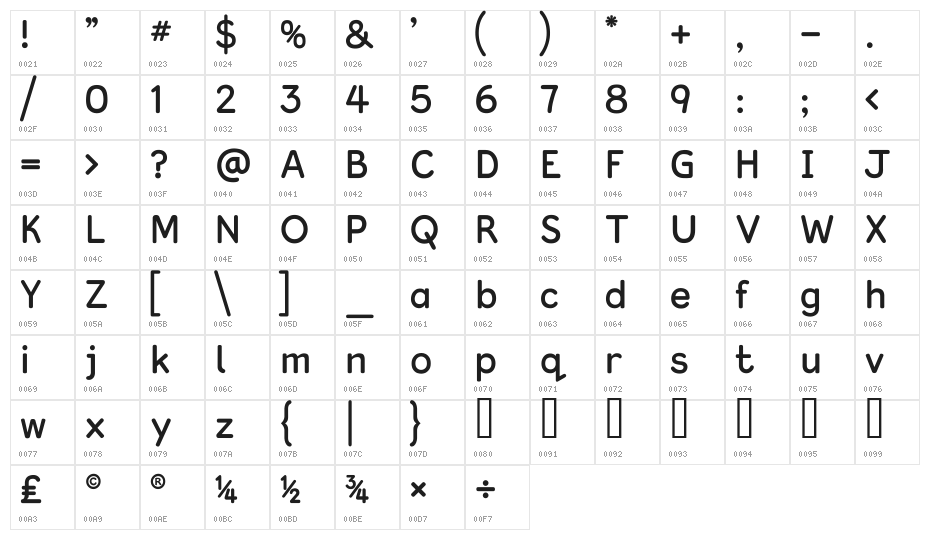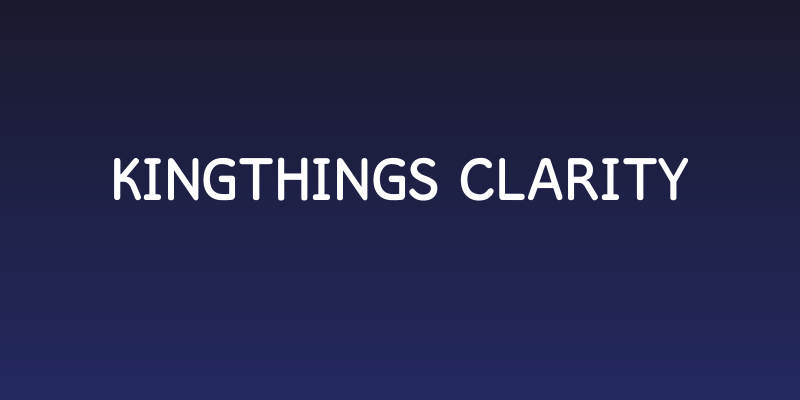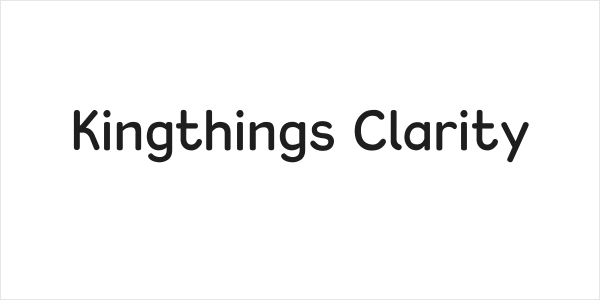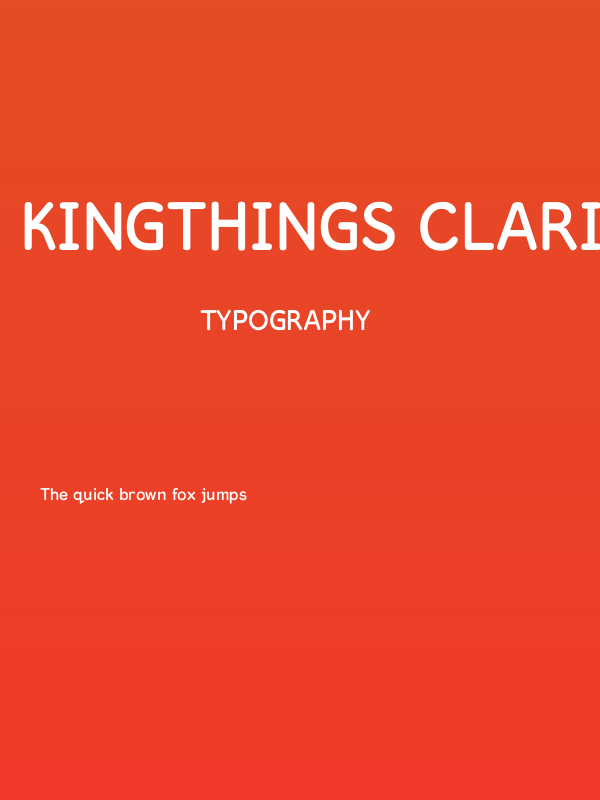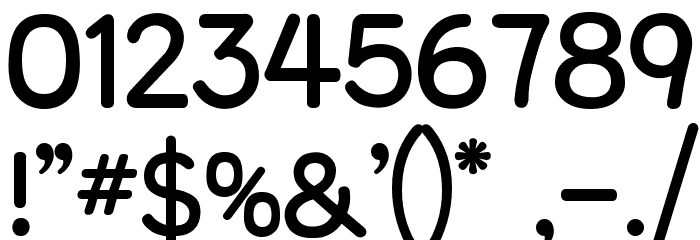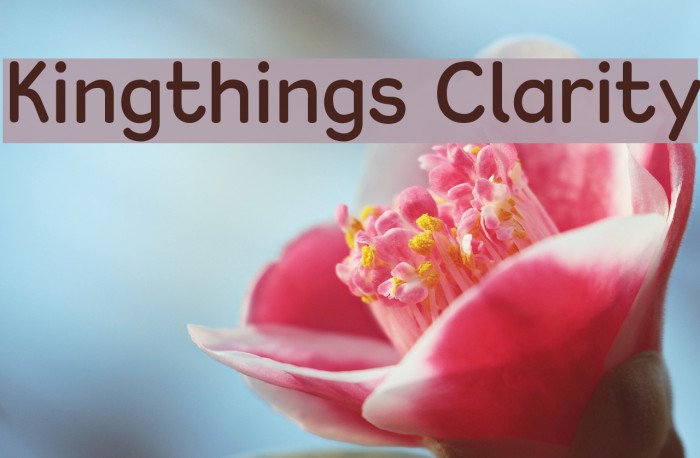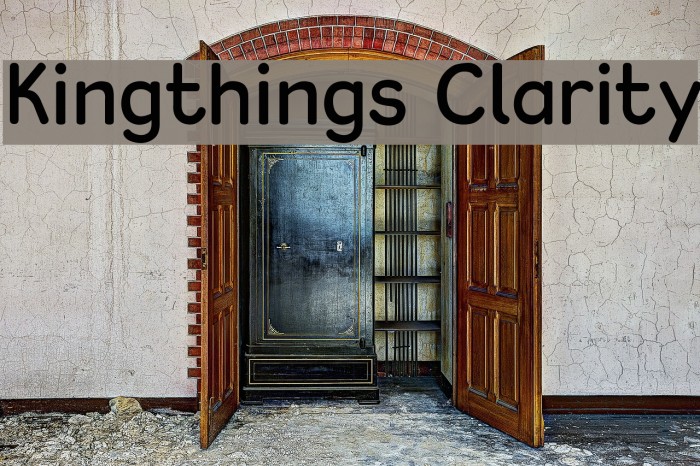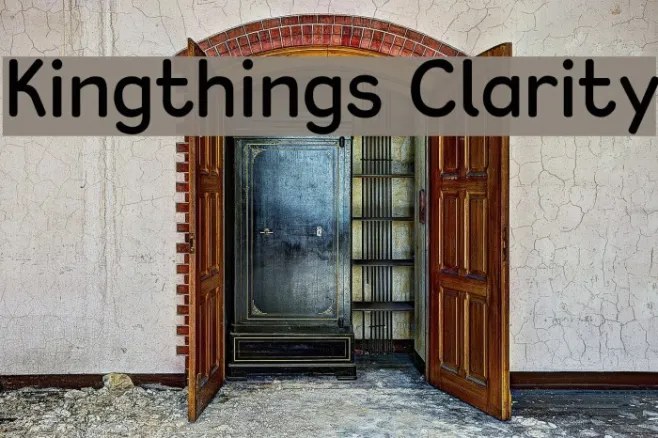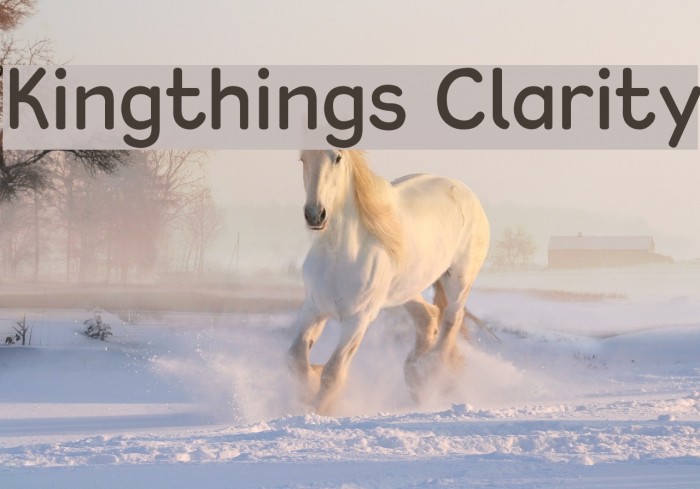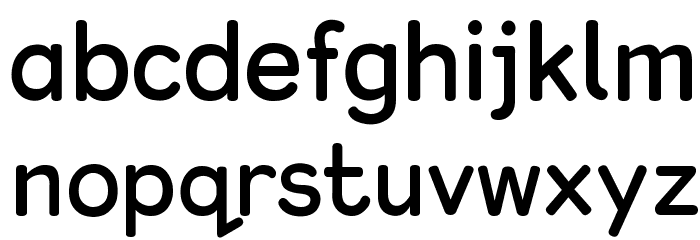
Kingthings Clarity Font
Kingthings Clarity Description
This font features a clean and rounded sans-serif style, characterized by its smooth curves and uniform stroke width. The letters are well-proportioned, offering a friendly and approachable appearance. Its simplicity and clarity make it highly legible, suitable for both digital and print media. The numerals and special characters maintain the same rounded aesthetic, ensuring consistency throughout. This font's modern design is versatile, making it ideal for a wide range of applications.
| Proposed Projects | Ideal for branding, web design, user interfaces, and educational materials due to its clarity and approachability. |